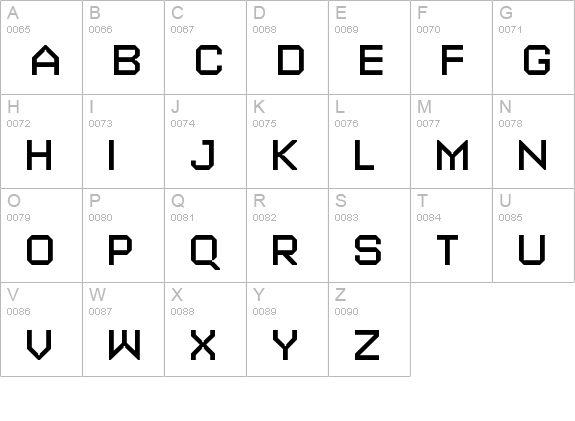
Introducing Alloy font - a sleek and modern typeface that exudes sophistication and elegance. With its clean lines and stylish curves, Alloy is perfect for a wide range of design projects, from branding to editorial layouts. This versatile font is free to download at FontsMarket.com, making it accessible to all designers looking to add a touch of class to their work. Whether you're creating a logo, website, or print materials, Alloy font will surely elevate your designs to the next level. Don't miss out on this amazing opportunity to enhance your projects with the timeless beauty of Alloy font.